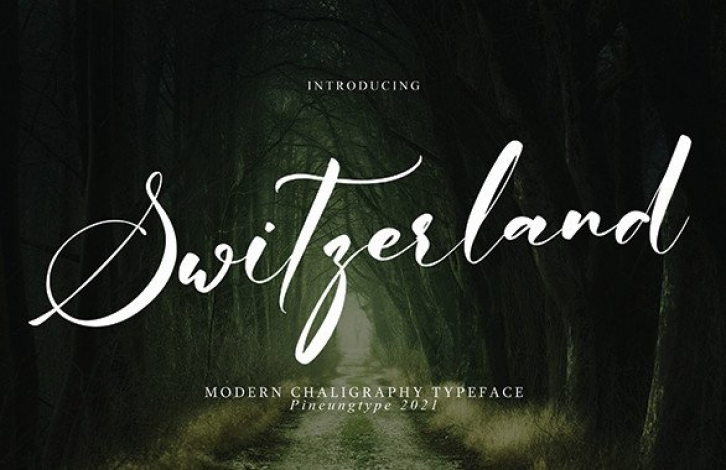
Switzerland is a lovely and delicate script font that exudes elegance and class. This font was particularly crafted for those who need a beautiful and refreshing look to their designs.Â